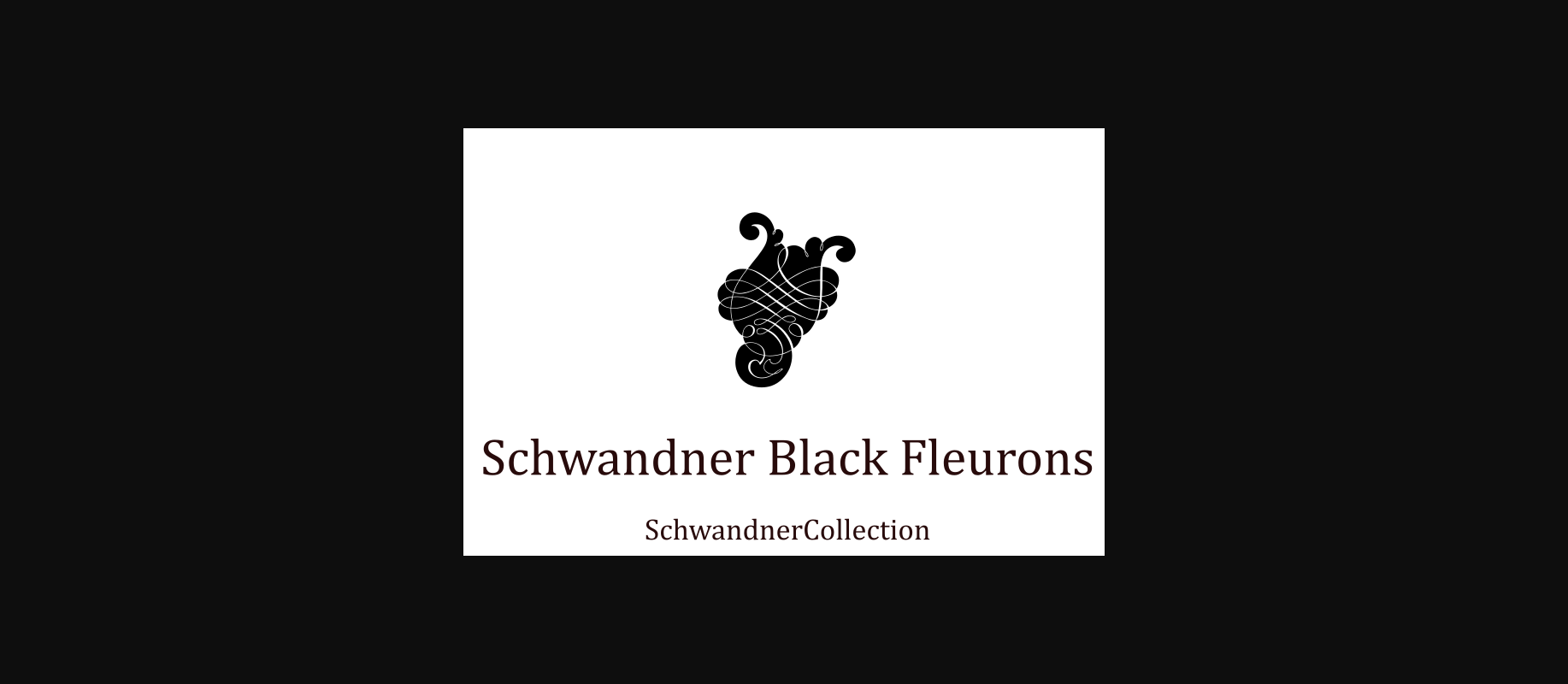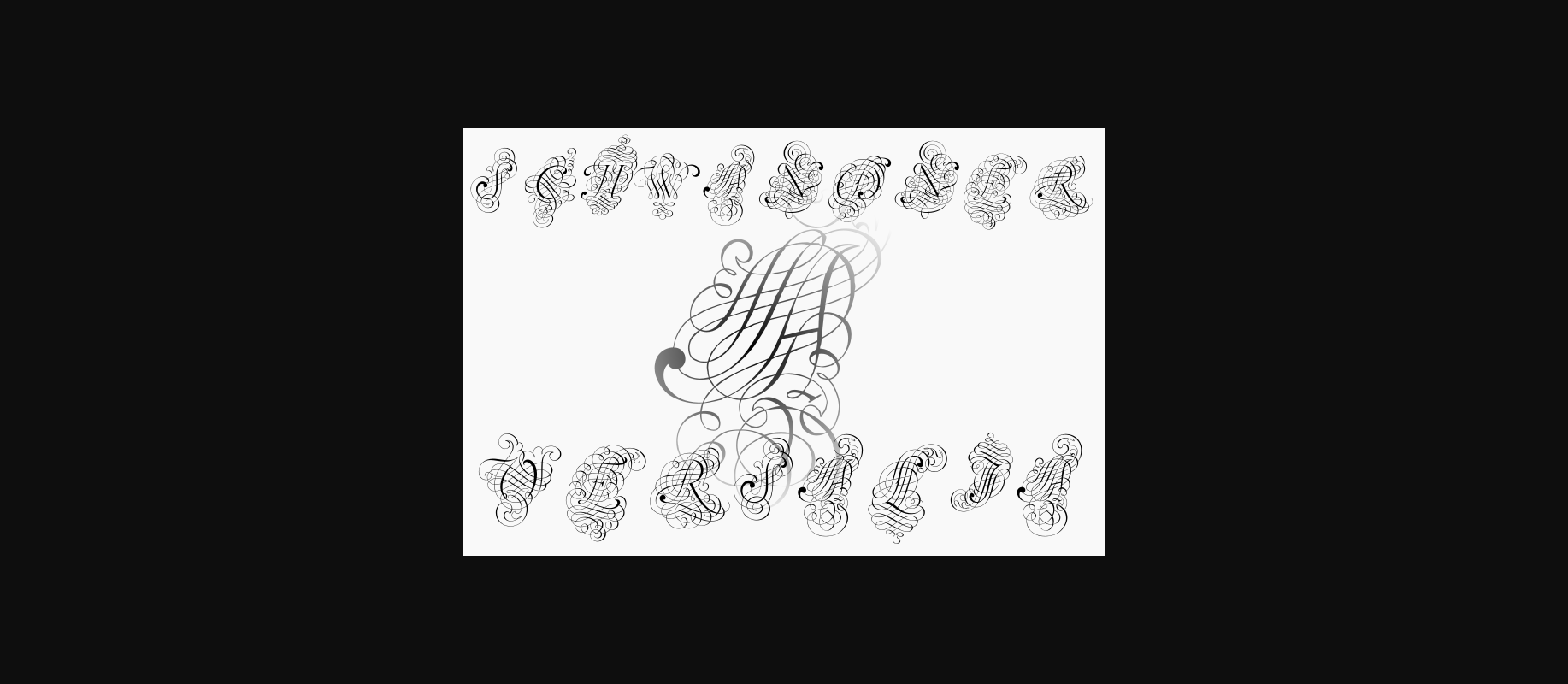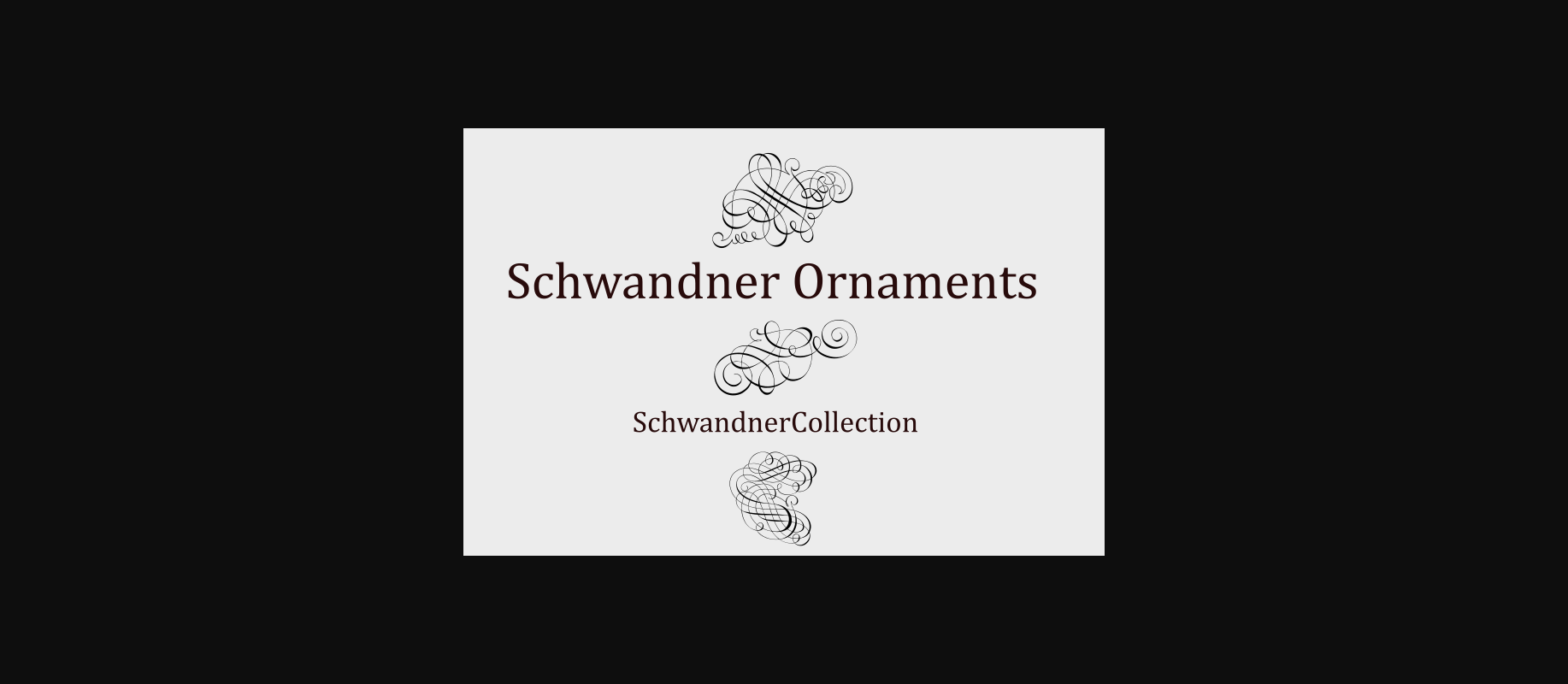
Schwandner Font
About Schwandner Font
Schwandner Versalia is a highly intricate decorative capital from the work of Johann Georg Schwandner (1716-1791). An accurate historical revival and interpretation of Iza W, and edition of Paulo W. State-of-art to use in headings, chapter initials from books, magazines, and other publications. Also, use in baroque and renaissance-inspired layouts, or modern mixed proposals.
Schwandner Ornaments are a set of very intricate and recherché ornaments from the work of Johann Georg Schwandner, and the last piece of this collection is Schwandner Black Fleurons. These ornaments and fleurons are state-of-art to use in headings, magazines, and other publications.